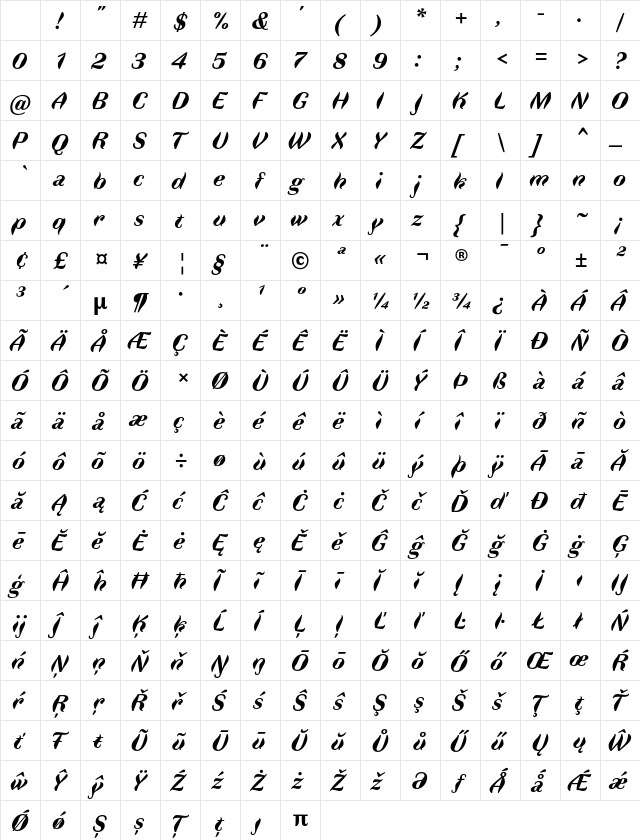
Complete Faune BoldItalic Regular glyph index. Displaying only characters natively supported by Faune BoldItalic Regular font.
Faune BoldItalic is a composed and adaptable typeface that performs quietly and consistently across a wide range of design contexts. The slanted form adds forward momentum and visual energy. Its bold stroke weight gives it real presence on the page.
Pro Tip: Use Faune BoldItalic for emphasis, pull quotes, and subheadings where its slanted energy can add rhythm to the layout.